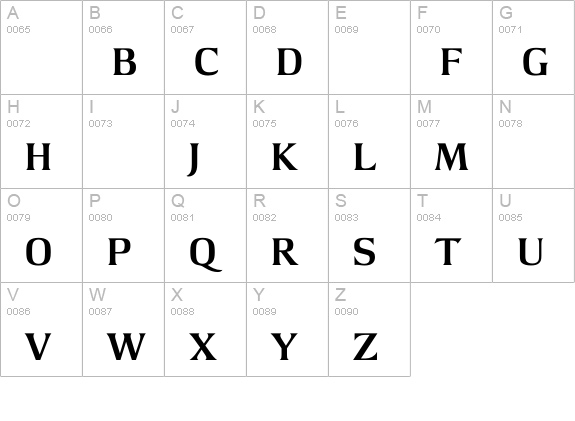
ArgusBold Font Details
ArgusBold is a striking and versatile font that exudes strength and confidence. With its bold and impactful design, this typeface is perfect for making a statement in any project. The clean lines and modern aesthetic of ArgusBold make it ideal for a wide range of applications, from branding to advertising to editorial design. What's even better is that ArgusBold is available for free download at FontsMarket.com. This means that you can easily access this powerful font and use it in your projects without any cost. Whether you're a designer looking to add a bold touch to your work or a business owner seeking a font that commands attention, ArgusBold is the perfect choice. Download it today and elevate your designs with this exceptional typeface.